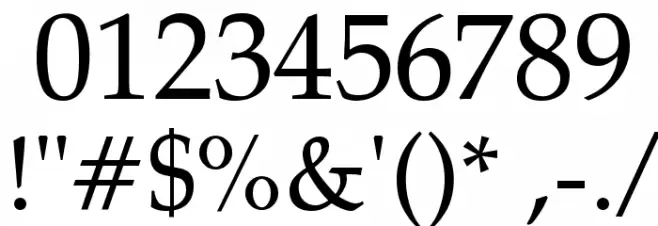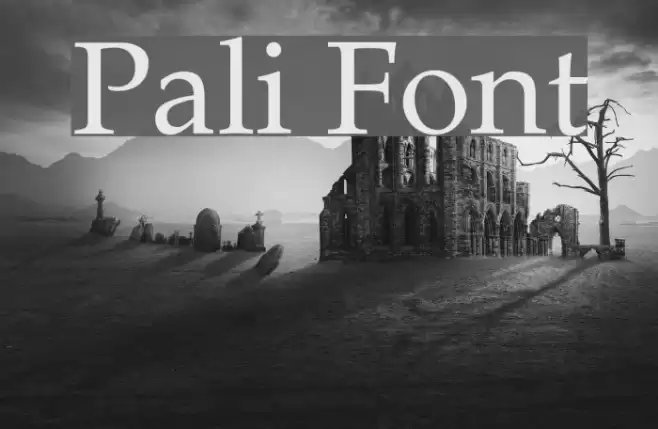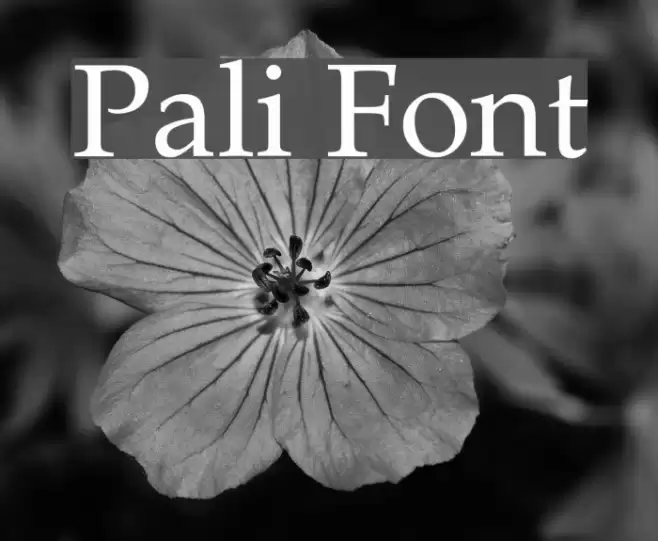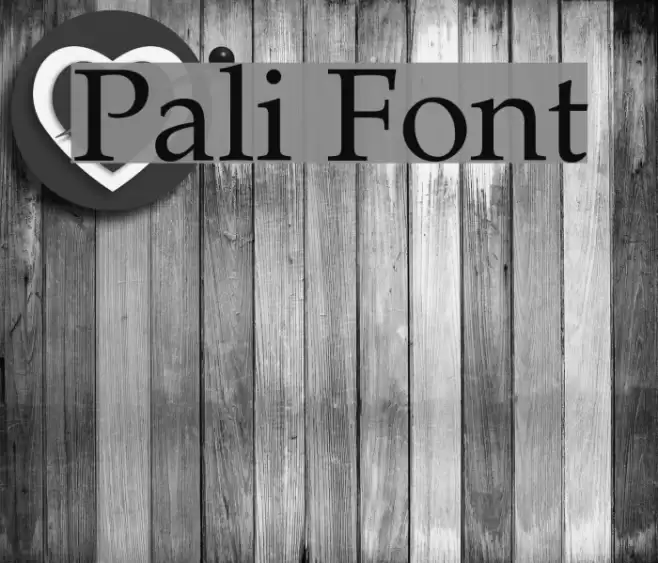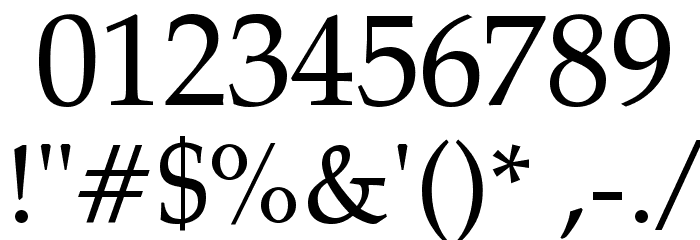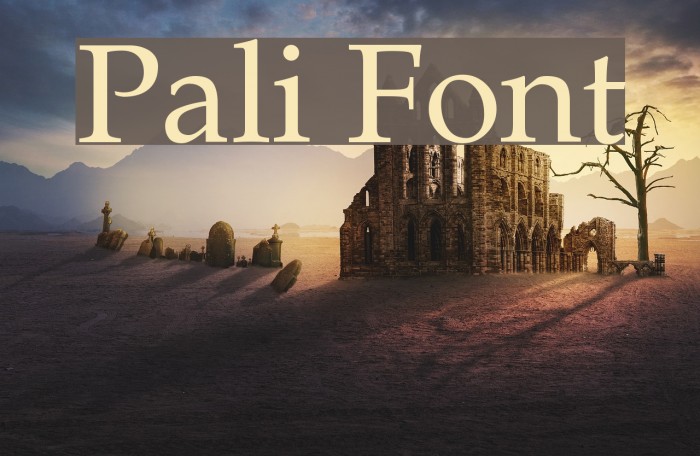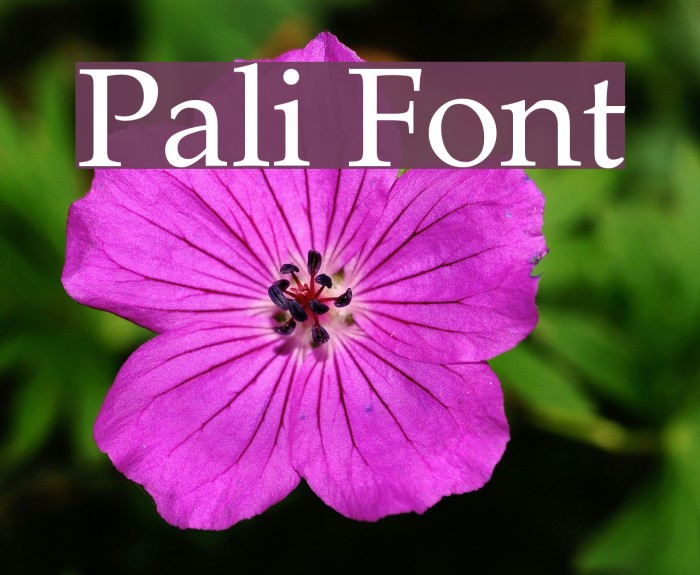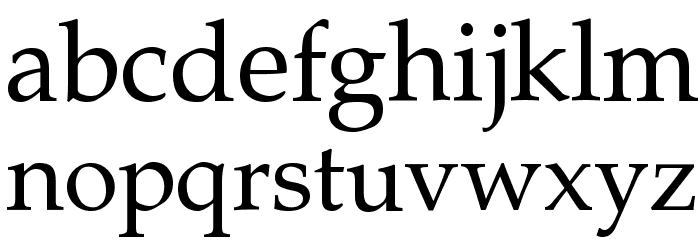
Pali
This font features a classic serif style with elegant, well-defined strokes and a balanced structure. The uppercase letters are bold and commanding, while the lowercase letters maintain a graceful and readable form. The numerals are clear and consistent, matching the overall aesthetic of the font. Special characters are distinct and harmonize well with the alphabetic characters, ensuring versatility in various types of text. The font's design is both timeless and sophisticated, making it suitable for a wide range of applications.
A classic serif font with elegant strokes and balanced structure.
- Proposed Projects: Ideal for editorial design, book covers, formal invitations, and branding projects that require a touch of elegance.
- Category: Serif
- Overall Style: Classic